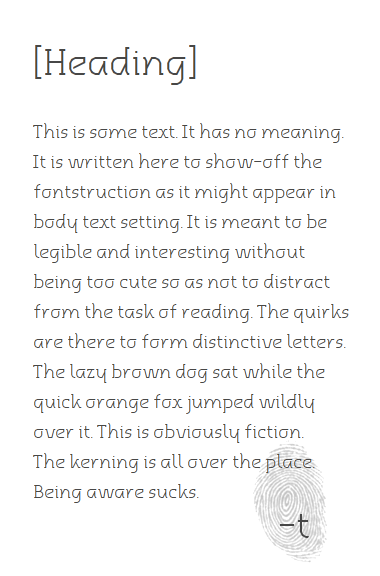
• A less confused version of fs Confused.
God this is beautiful. I'm embarrassed to have posted my pile of crap immediately after this sublime effort.
You should try to remake this fabulous design in a non modular software to get rid of these so disgracing polygonal curves in big sizes. It really deserves it.
I like the modular curves.
Yes, very good.
I like how some of the lines aren't attached.
It's nice to phantasize about which curves you'd smoothe out if you could... I think it would look terrific with most of the bowls smoothed out but all the joins sharp. Maybe with some of the angles going into a bowl sharp to hint at the modular origin.
It works really well as a body text 10/10
This font is very well crafted.
Lowercase are awsome. 10
This is VERY good font. I'm just wondering why its called fs confused? lol